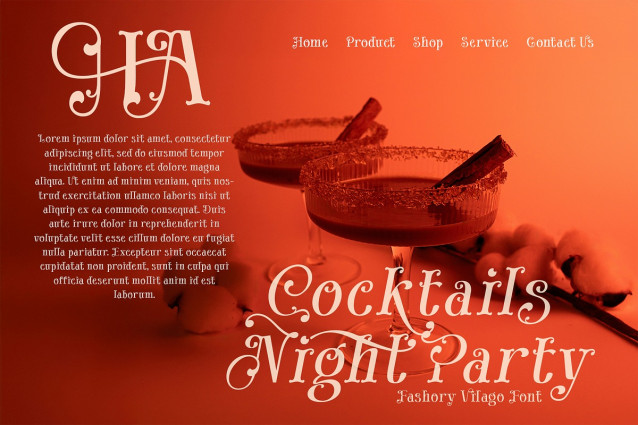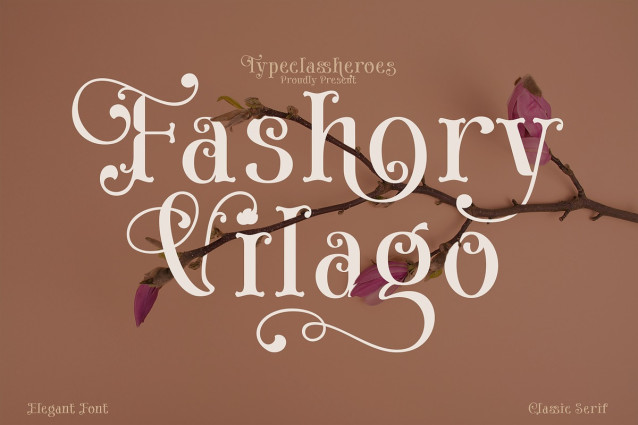
Fashory Vilago Font
Fashory Vilago Font a classic font will bring a unique style and a trendy look to your designs. Serif typeface with trending ligatures and special character, curly and swash offering a harmonious balance between classic and elegant design. Suitable for various uses such as headers, titles, book cover, invitation, even for any design work that requires a luxury classic look.